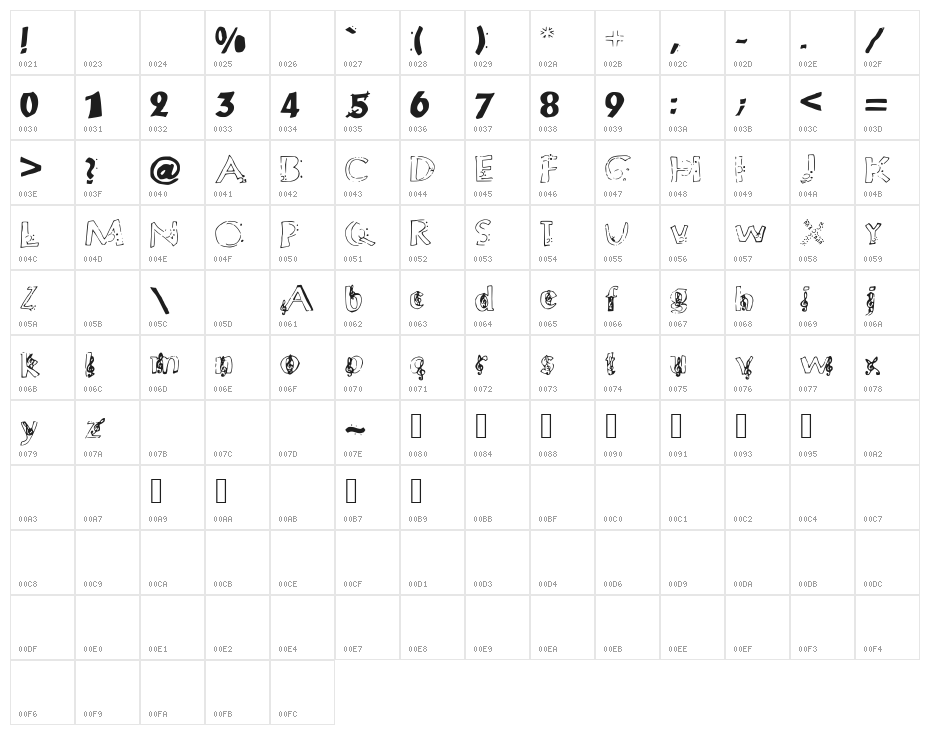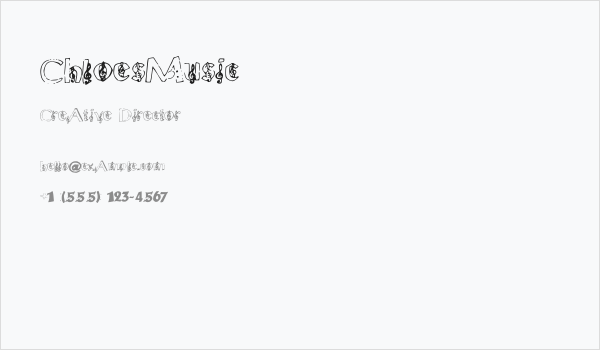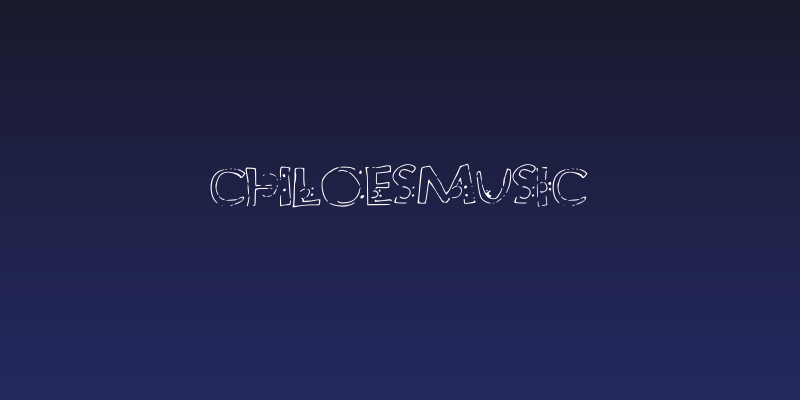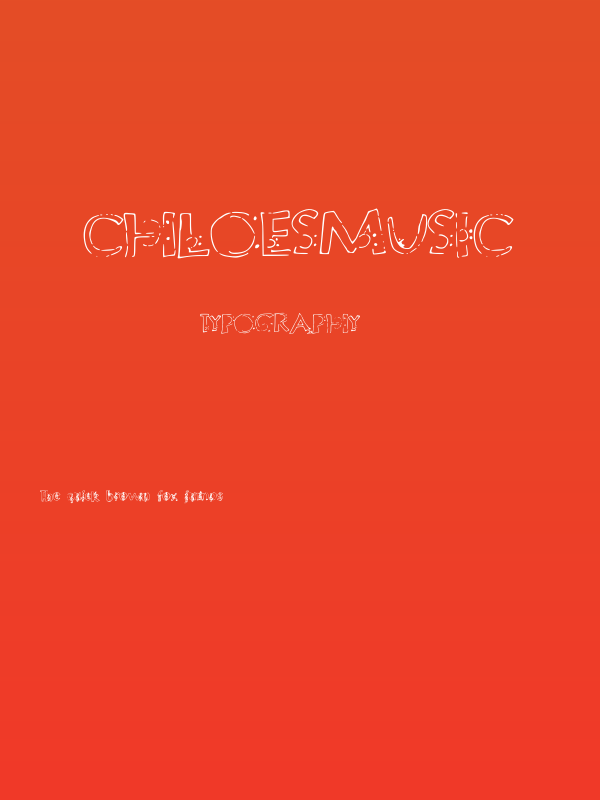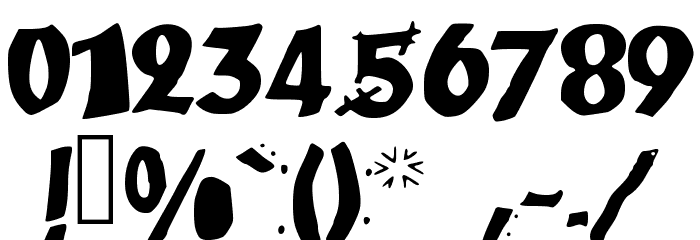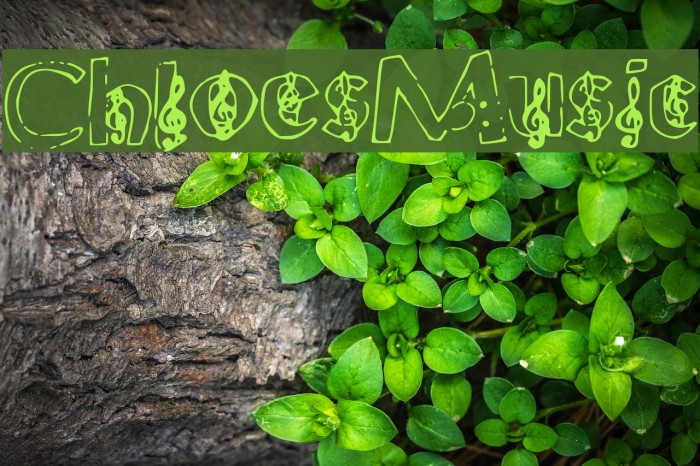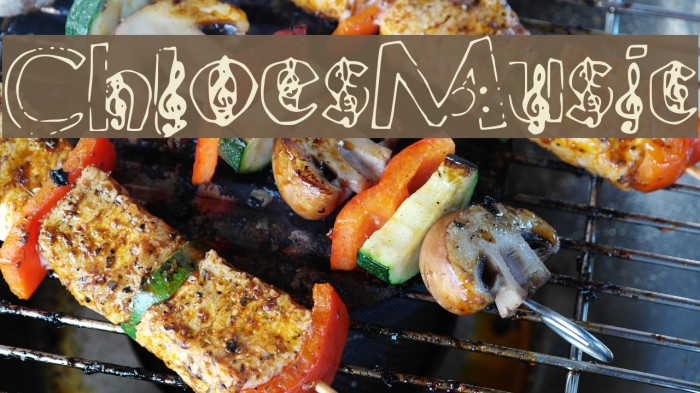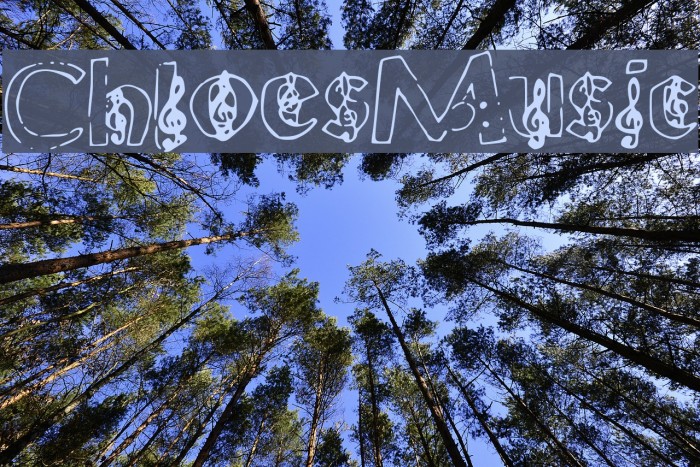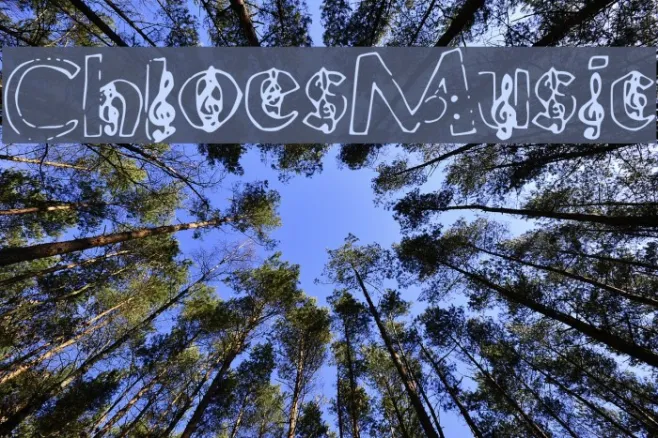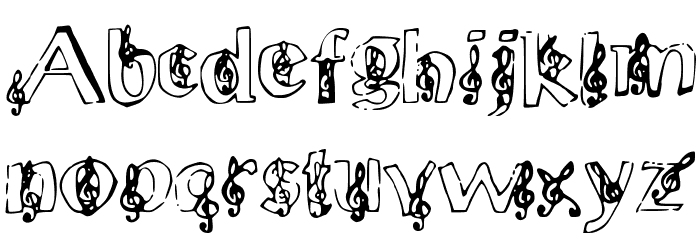
ChloesMusic Font
ChloesMusic Description
This font features a unique and artistic design, incorporating musical elements into each character. The uppercase and lowercase letters are adorned with musical notes and symbols, creating a playful and dynamic appearance. The numbers and special characters follow the same theme, making the entire set cohesive and visually interesting. The font's style is decorative, with a whimsical and creative flair that stands out. Its intricate details and musical motifs make it ideal for projects that require a touch of creativity and artistic expression.
| Proposed Projects | Ideal for music-themed posters, album covers, event invitations, and creative branding projects. |